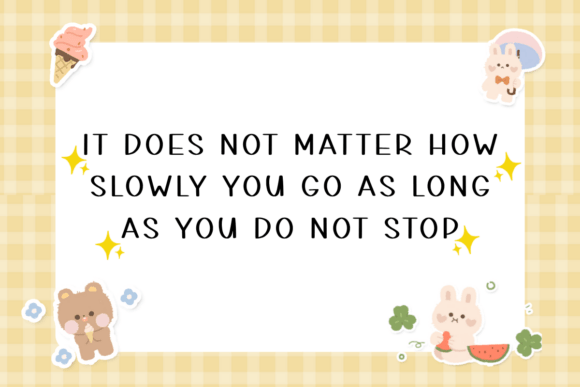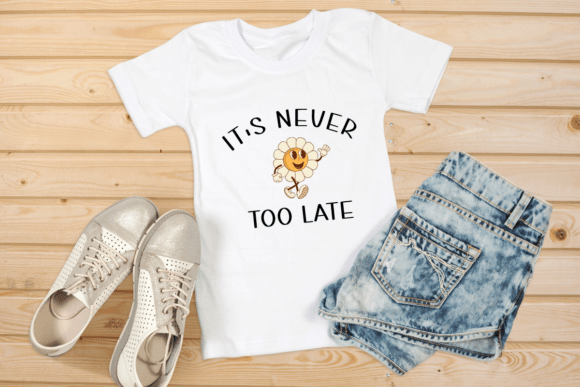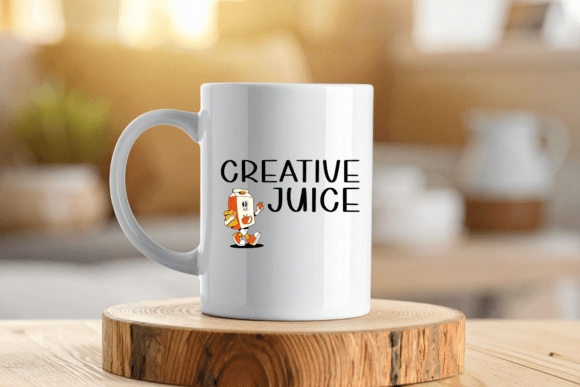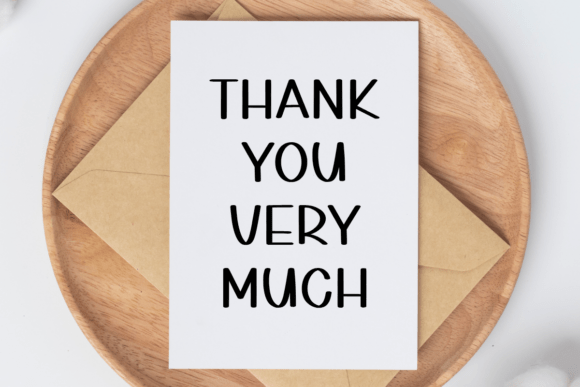
Introduction to Mango Thick Font
As a designer, there’s nothing quite like the thrill of bringing a creative project to life. It’s the moment when all the pieces come together, and you see your vision take shape. For many of us, that moment happens when we add the perfect font to our design. And today, I’m excited to introduce you to one of my new favorites: the Mango Thick Font.
This charming handwriting font is a game-changer for any designer looking to add a touch of whimsy and personality to their projects. With its cute aesthetic and natural vibes, the Mango Thick Font is perfect for everything from planner layouts to crafty invitations. Whether you’re working on a high-quality design for a client or a personal project, this font is sure to bring a smile to your face and make your design stand out.
Key Features of Mango Thick Font
- Unique, bold design perfect for creative projects, such as posters, flyers, and brochures
- Unique characteristics: thick lines, rounded edges, and a modern aesthetic, setting it apart from other fonts
- Perfect for designers looking for a bold, eye-catching font to elevate their creative project
Honest Review: Mango Thick Font
I recently stumbled upon the Mango Thick Font, and I must say it’s a great addition to any design project. As a designer, I appreciate a good font that can add some personality to my work, and this one definitely delivers.
- The design is clean and modern, with a thick and bold aesthetic that’s perfect for headings and titles.
- The font only comes in a few different weights, which can limit its versatility in certain design projects.
- The font may not be suitable for projects that require a lot of subtlety or nuance, as its bold design can be a bit overpowering.
Overall, I’m really impressed with the Mango Thick Font. It’s a high-quality design resource that’s perfect for creative projects that require a bold and eye-catching font. I’d definitely recommend it to fellow designers who are looking for a free and versatile font that can add some personality to their work.
Mango Thick Font
Getting the Most Out of Mango Thick Font
To get the most out of Mango Thick Font, use it in combination with other design elements, such as images and graphics. You can also experiment with different font sizes and styles to add visual interest to your design.
Common Use Cases for Mango Thick Font
Mango Thick Font is suitable for a wide range of creative projects, including invitations, posters, and social media graphics. It’s also a great font to use for headings and titles, as it adds a touch of sophistication to your design.
Is Mango Thick Font a high-quality design resource?
Yes, Mango Thick Font is a high-quality design resource, carefully crafted to provide a unique and stylish look for your creative projects. With its bold and thick strokes, it’s perfect for adding a touch of elegance to your designs.